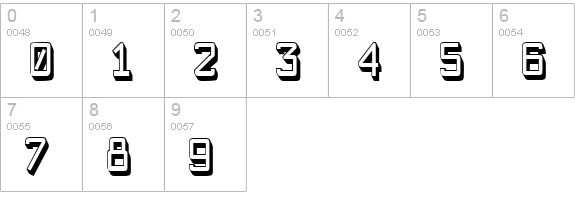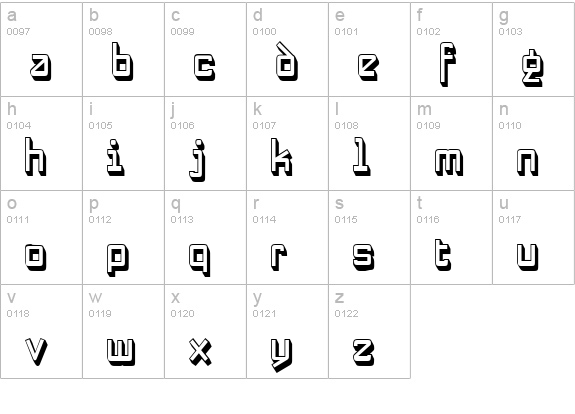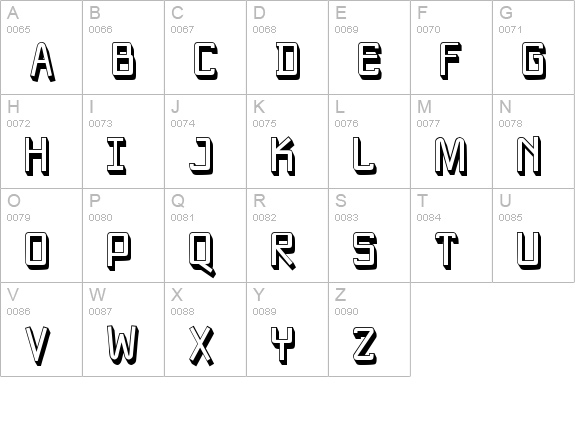
NewNerdShadowed Font Details
NewNerdShadowed font is a sleek and modern typeface that exudes sophistication and style. Its clean lines and sharp edges make it perfect for a wide range of design projects, from branding to web design. The unique shadowed effect adds depth and dimension to the text, making it stand out and grab the viewer's attention. What makes NewNerdShadowed font even better is that it is available for free! That's right, you can download this amazing font at FontsMarket.com without spending a dime. Whether you're a seasoned designer looking to add a fresh touch to your creations or a newcomer eager to experiment with different fonts, NewNerdShadowed is the perfect choice. Don't miss out on this fantastic opportunity to elevate your designs with this versatile and eye-catching font. Download NewNerdShadowed today and let your creativity soar!